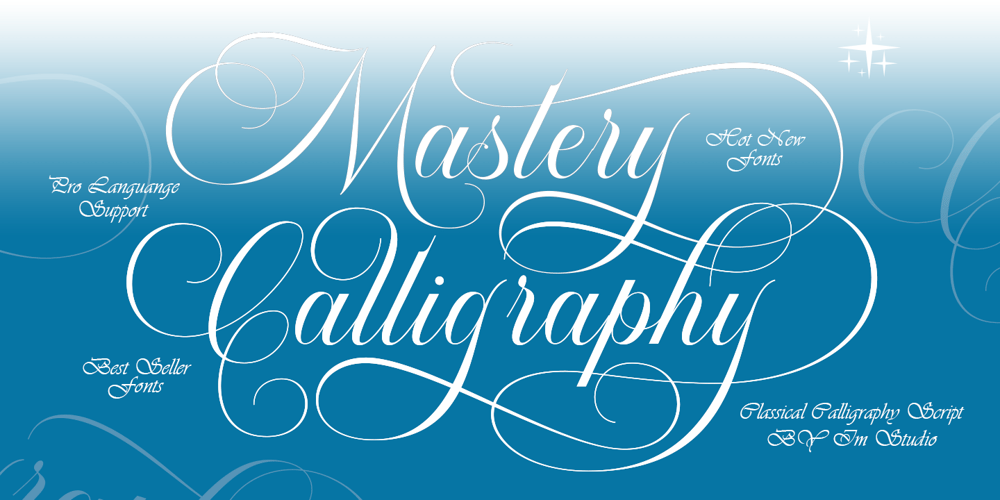
Mastery Calligraphy
Mastery Calligraphy font
Mastery Calligraphy Font Family was designed by Ikhsan Maulana and published by IM Studio. Mastery Calligraphy contains 1 styles and family package options. Mastery Calligraphy is a calligraphy font that comes with beautifully transformed characters, a kind of classic decorative copper script with a modern touch, designed with high detail to bring a stylish elegance. Mastery Calligraphy appeals as a typeface that is smooth, clean, feminine, sensual, glamorous, simple and very easy to read, because there are many luxurious letter connections. I also offer a number of decent style alternatives for many letters. The classic style is perfect for applying in various formal forms such as invitations, labels, restaurant menus, logos, fashion, makeup, stationery, novels, magazines, books, greeting/wedding cards, packaging, labels or any type of advertising purposes.Mastery Calligraphy is encoded with Unicode PUA, which allows full access to all additional characters without having special design software. Mac users can use Font Book, and Windows users can use Character Map to view and copy any additional characters to paste into your favorite text editor/application.If you need help or have any questions, please let me know. I am happy to help.Thank you & Happy Designing!